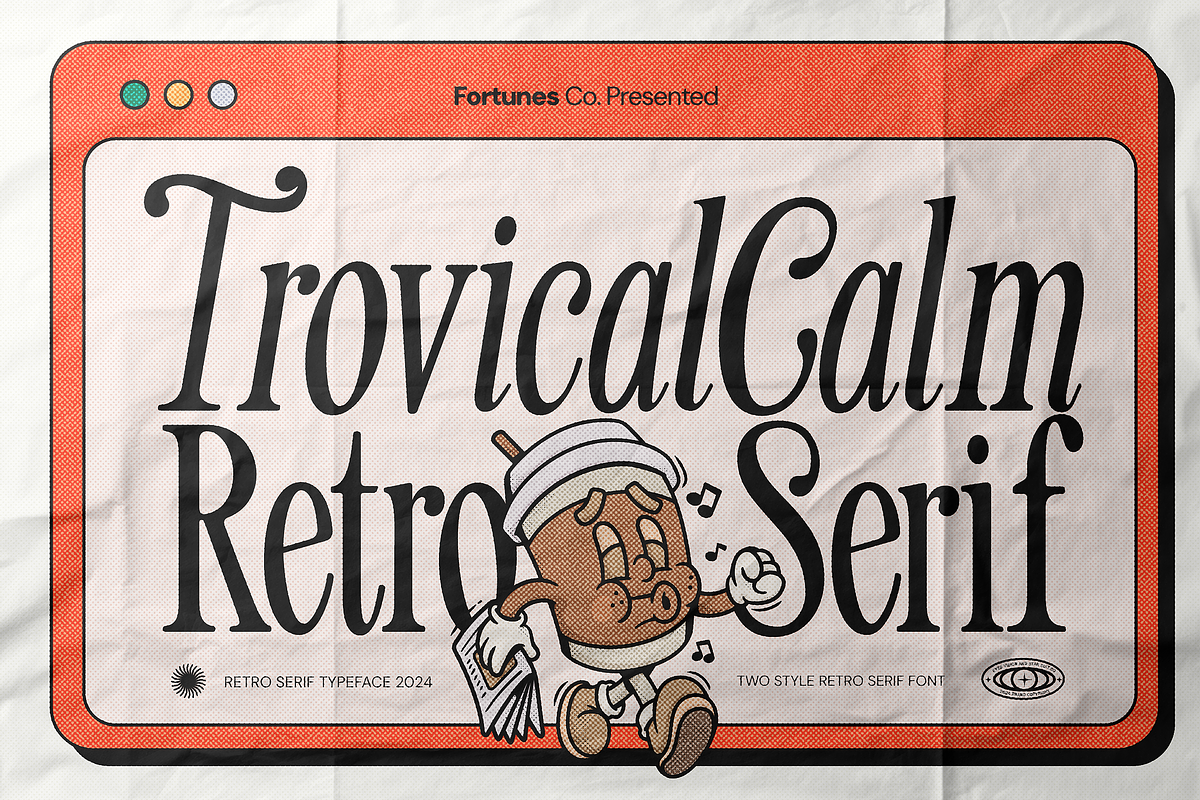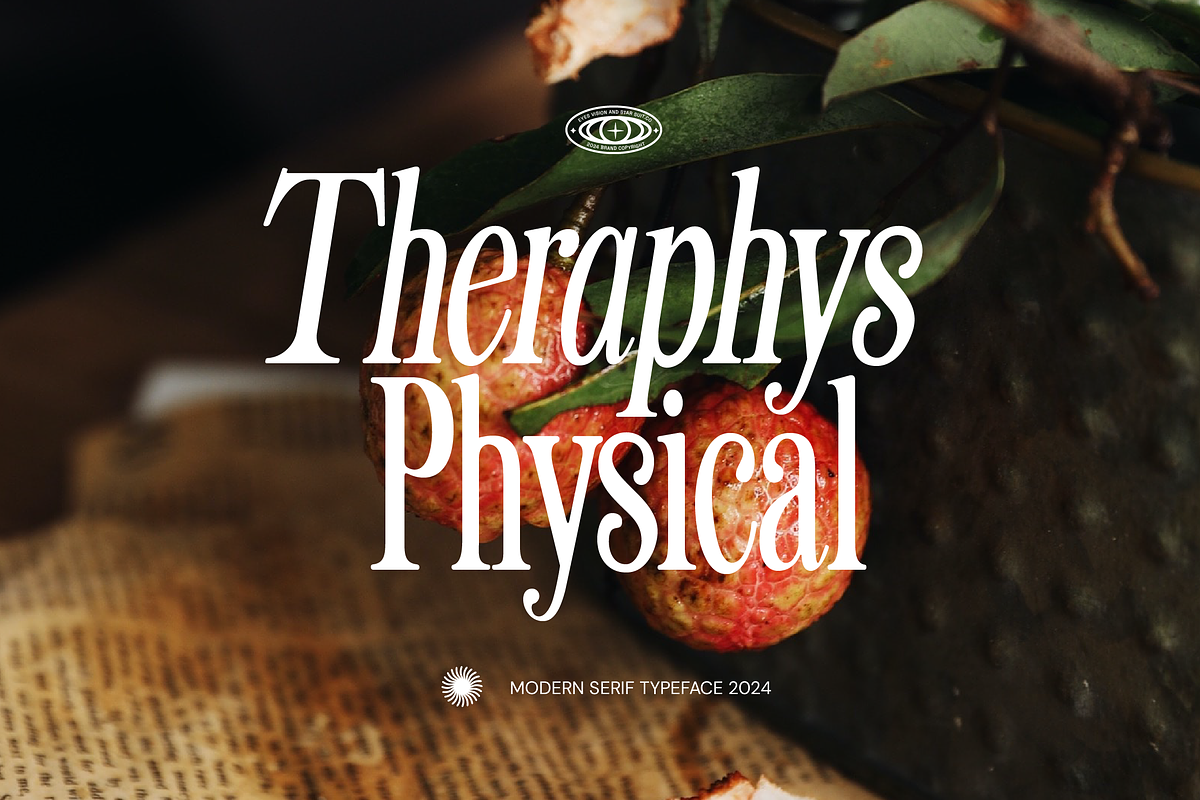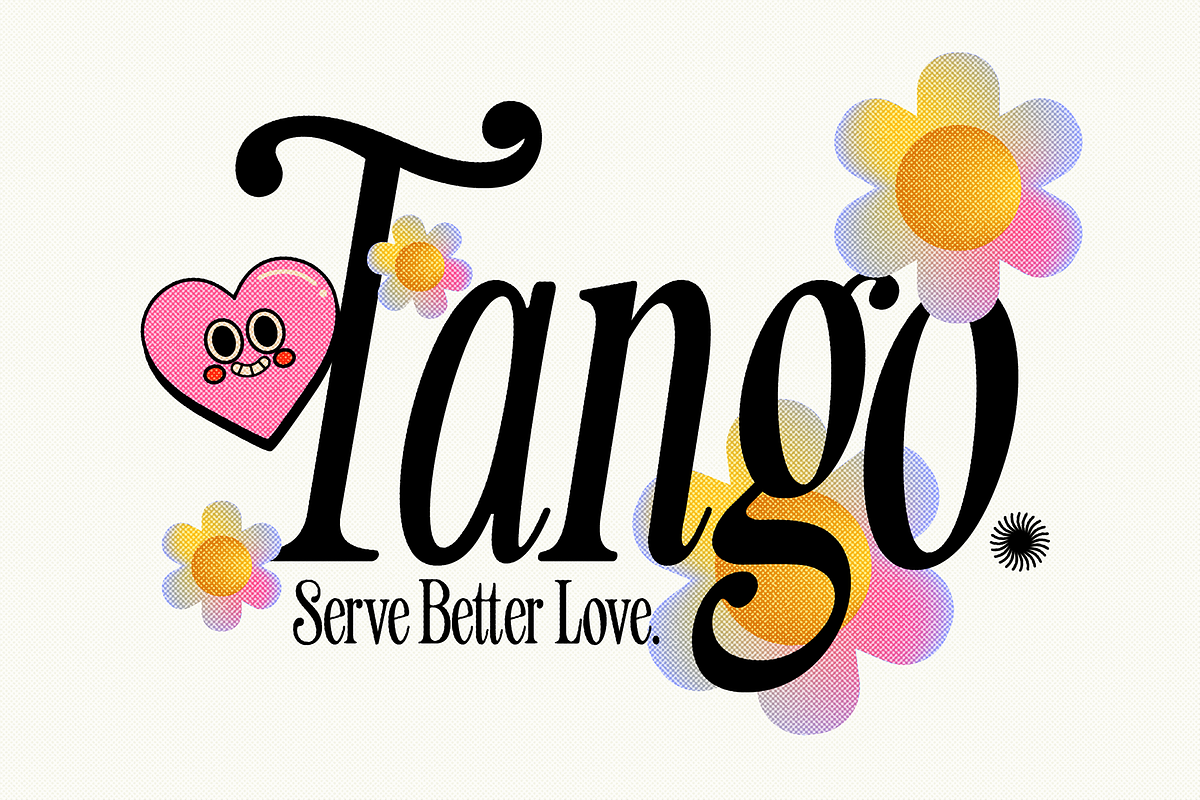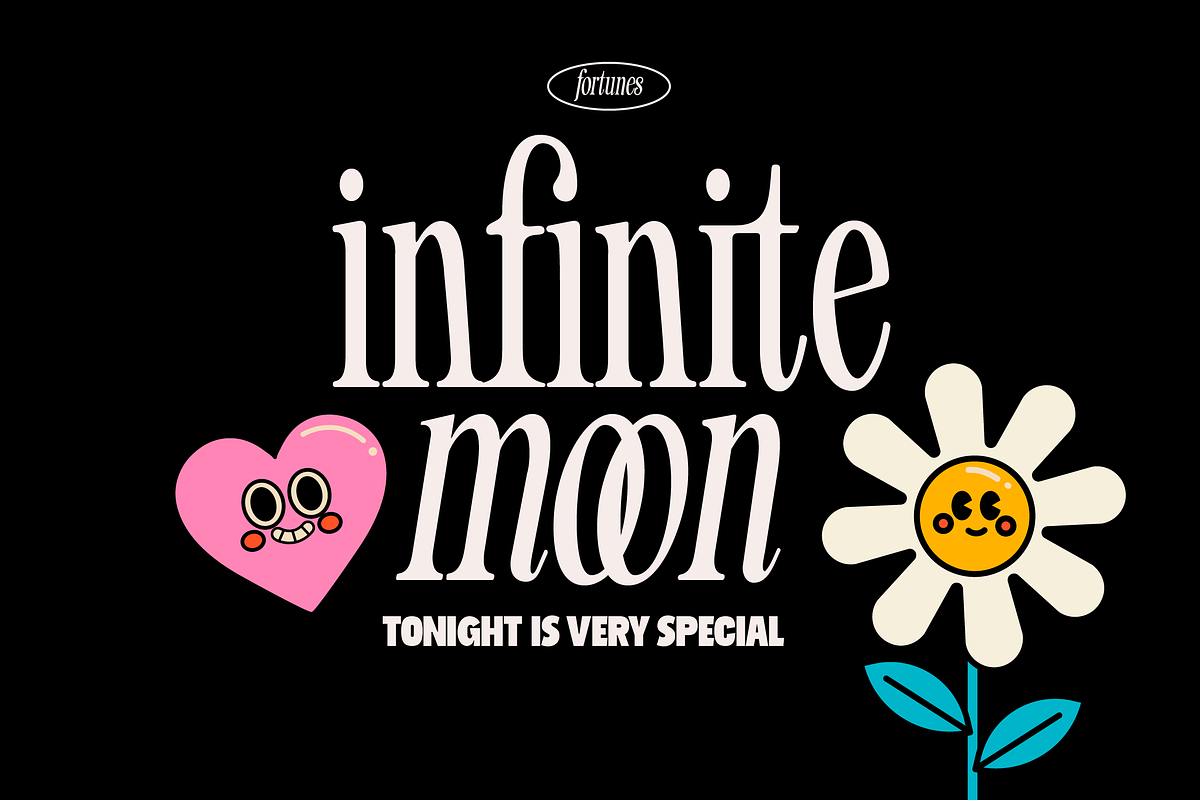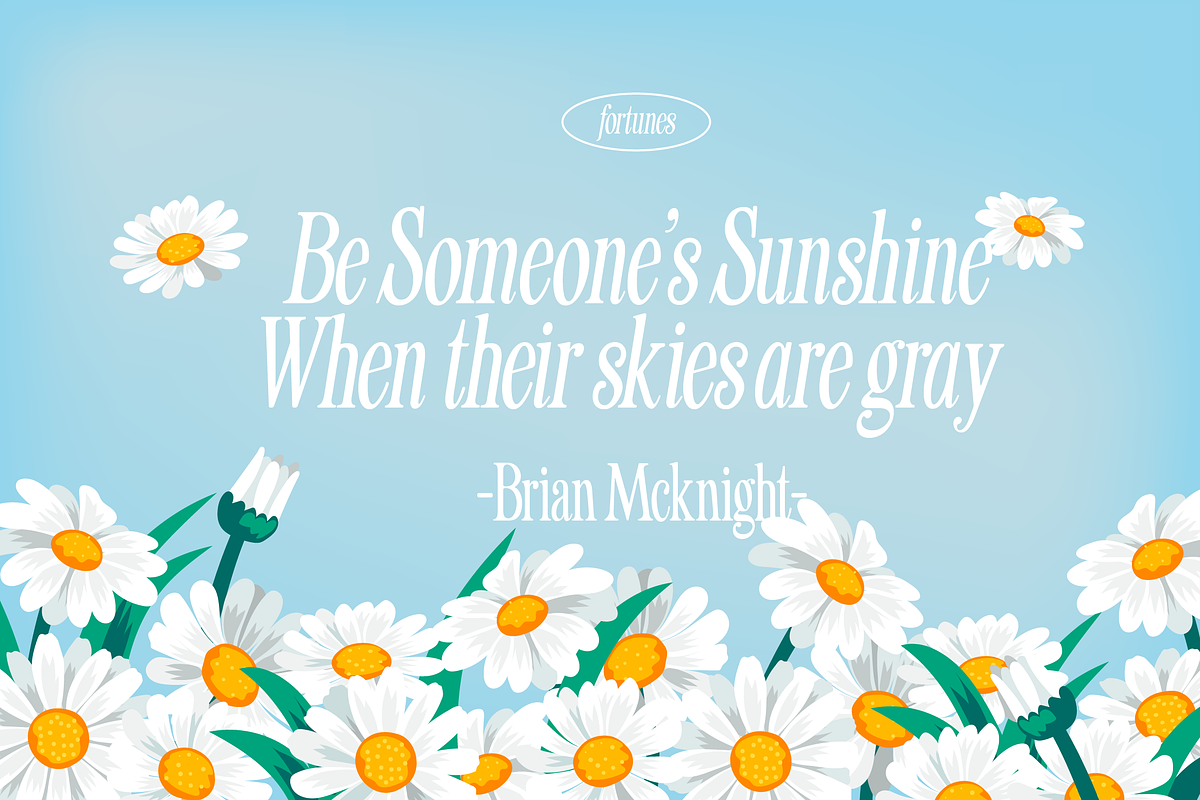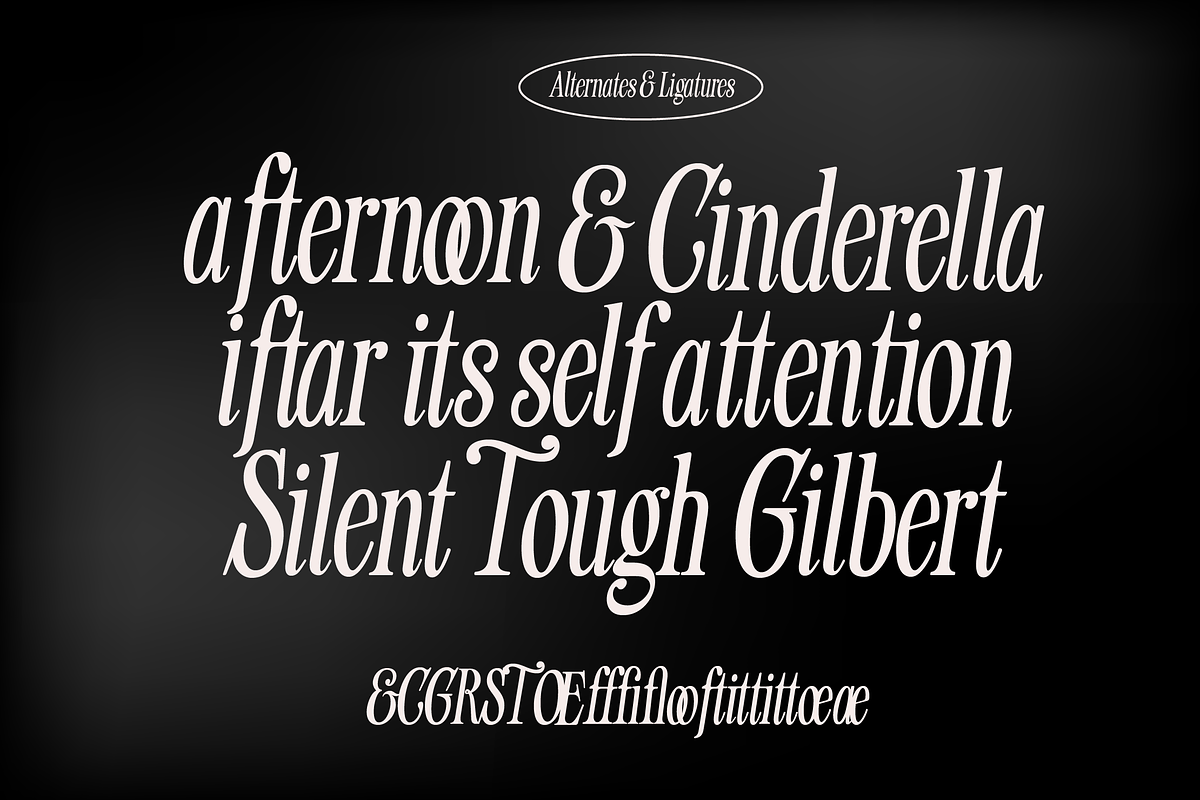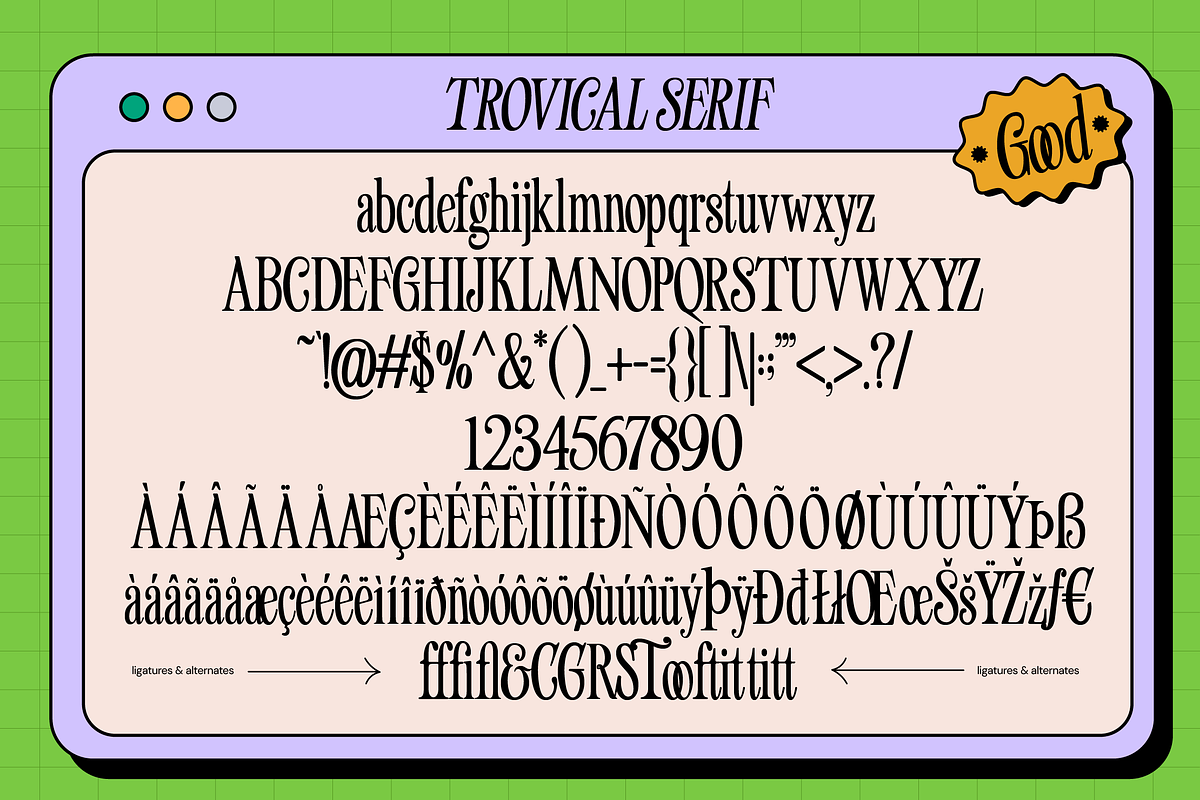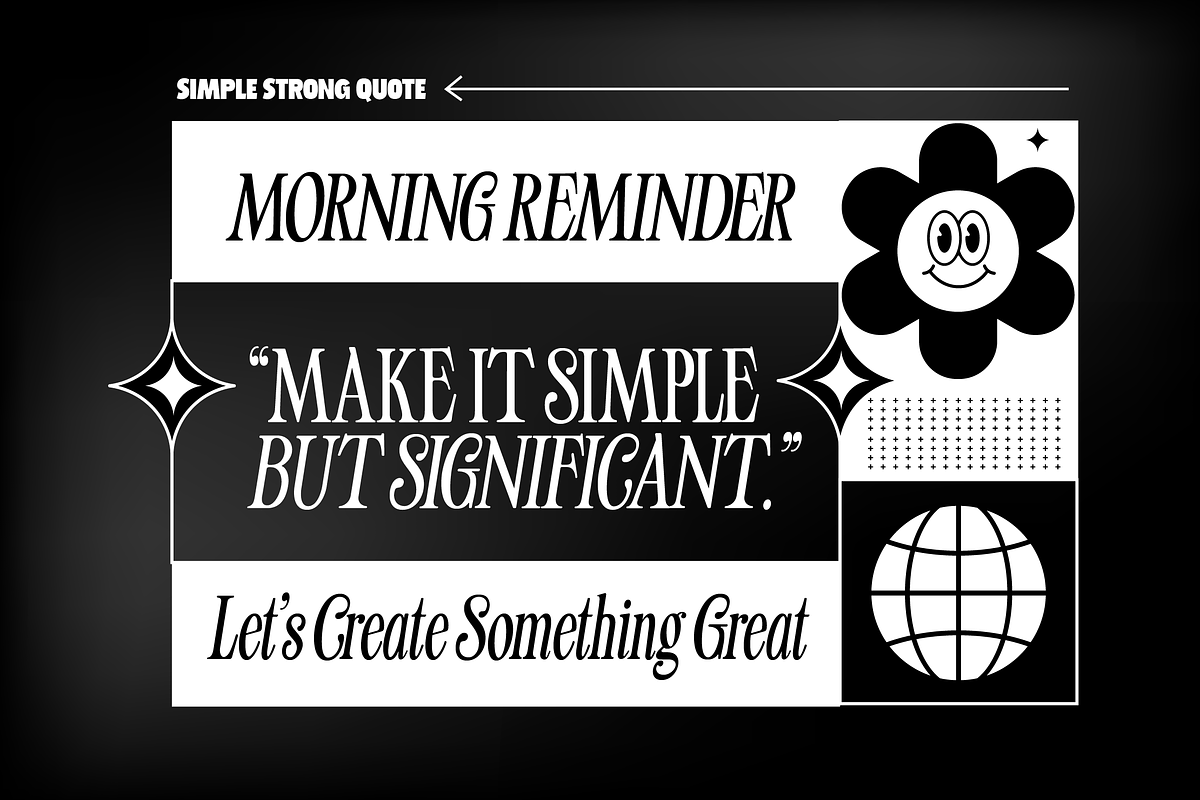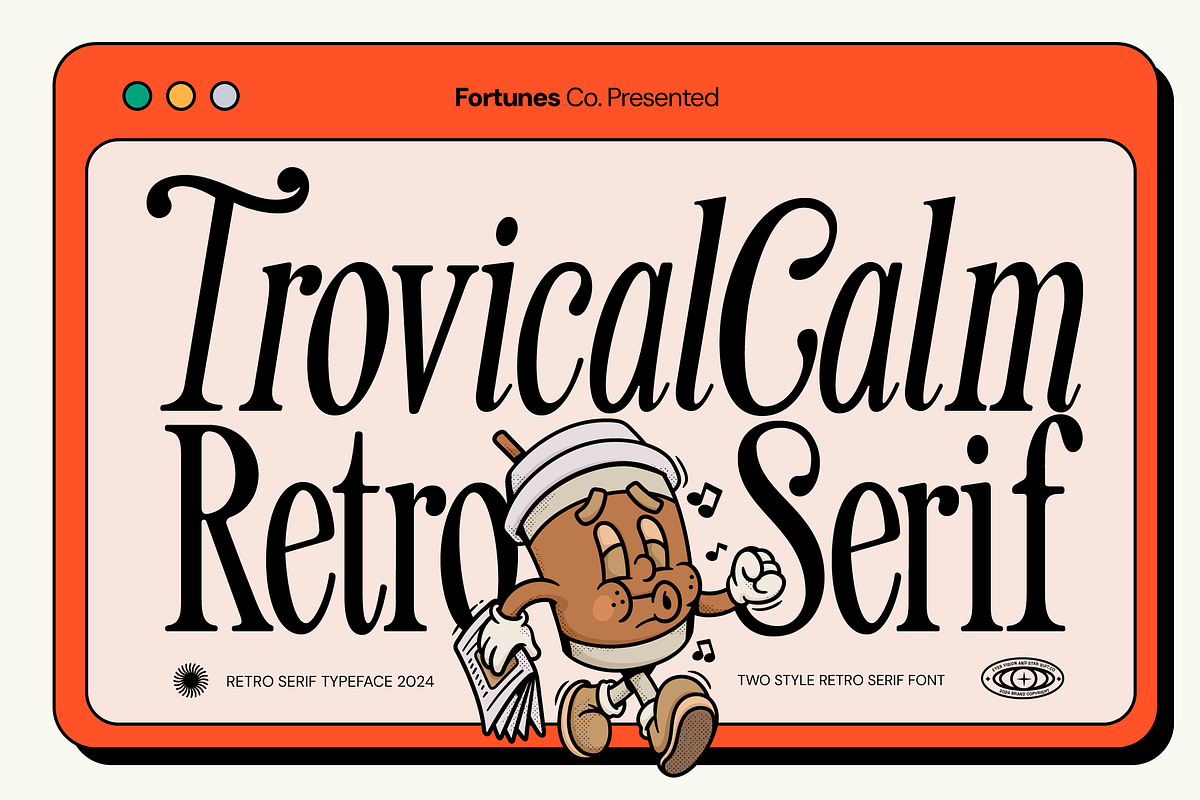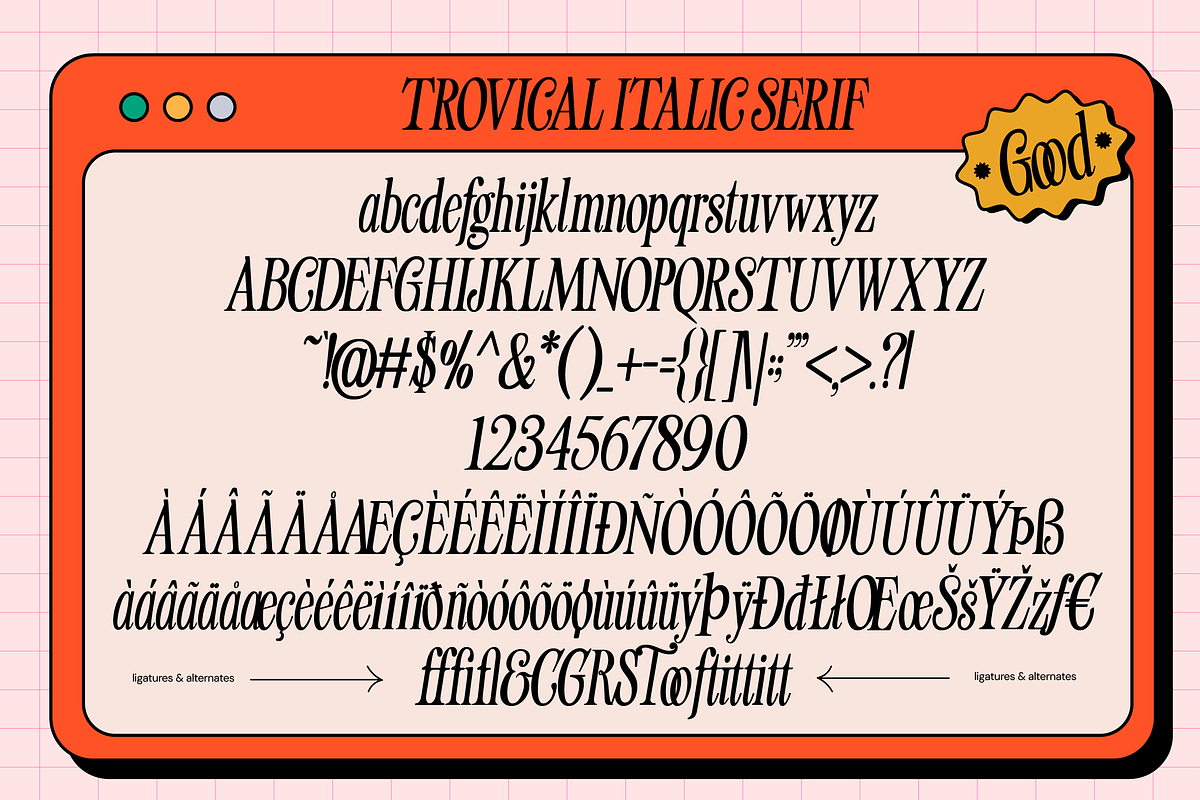
Trovical Calm Retro Serif
Sans-serif fonts for advertising with a retro theme strike the perfect balance between modern minimalism and vintage charm. Its streamlined design enhances readability and exudes a sense of timelessness. In advertisements, the focus is on bold, impactful messaging instead of decorative serifs. With retro-inspired color schemes and design elements, this font looks like mid-century posters. From branding to event promotions, it channels the sleek, no-nonsense approach of classic commercial design.
- Lowercase & Uppercase
- Numbering
- Latin Simple !"#$%&'()*+,-.//0123456789:;=? @ABCDEFGHIJKLMNOPQRSTUVWXYZ[]^_` abcdefghijklmnopqrstuvwxyz {|}~¡¢£¤¥¦§¨©ª«¬®¯°±²³´¶·¸¹º»¼½¾¿ÀÁÂÃÄÅÆ ÇÈÉÊËÌÍÎÏÐÑÒÓÔÕÖרÙÚÛÜÝÞßàáâãäåæçèéêëìíîïðñ òóôõö÷øùúûüýþÿĐđıŁłŒœŠšŸŽžƒˆˇ˘˙˚˛˜˝μ–—‘’‚“”„†‡•… ‰‹›⁄€™−fffifl